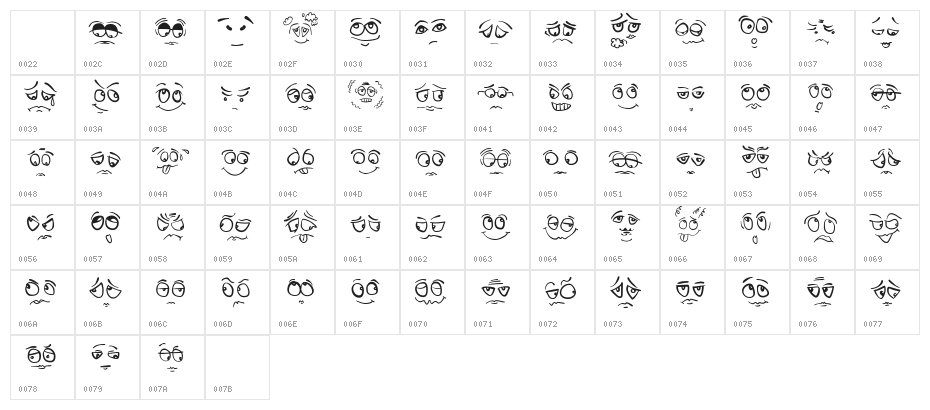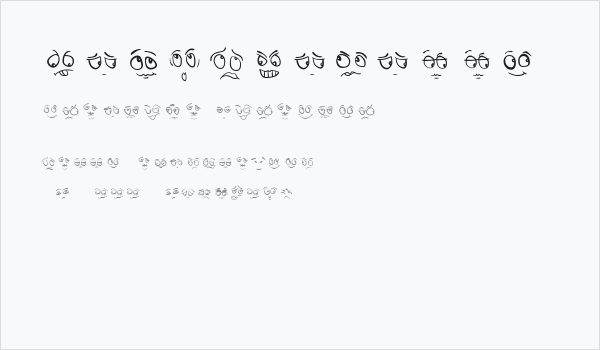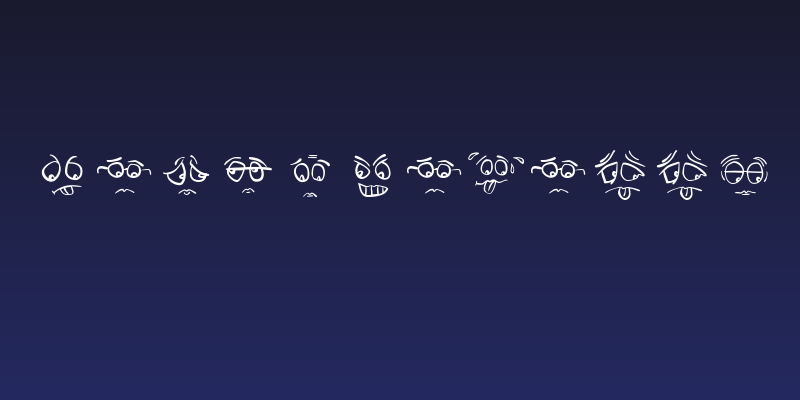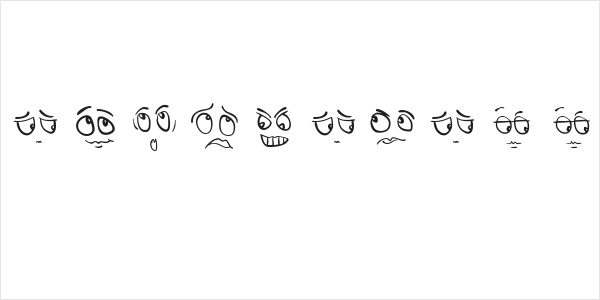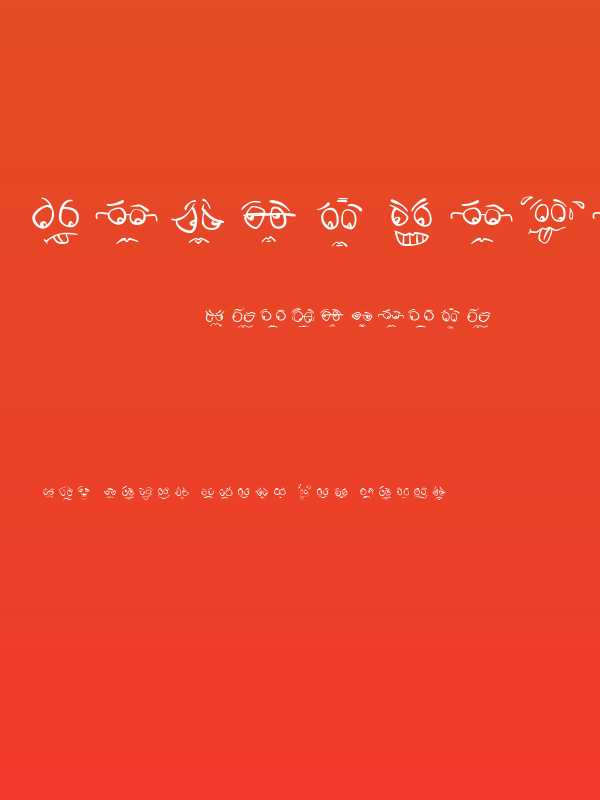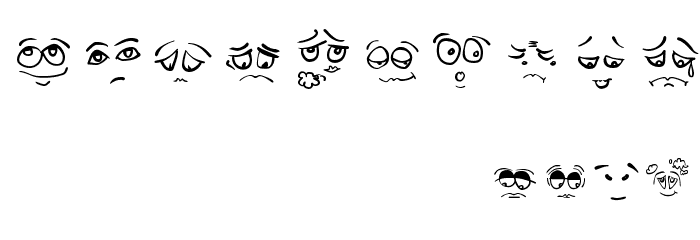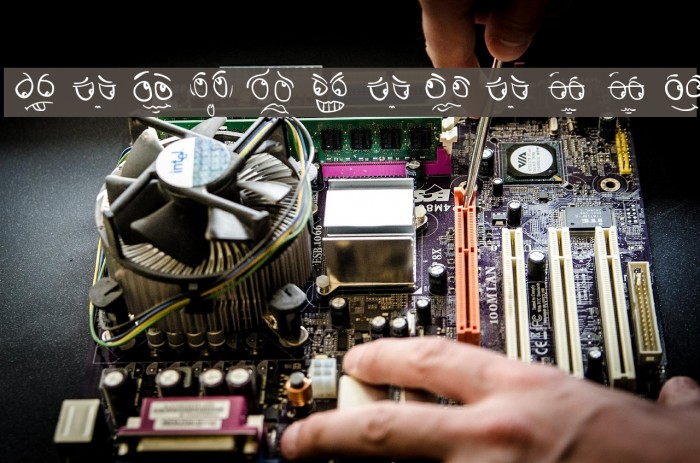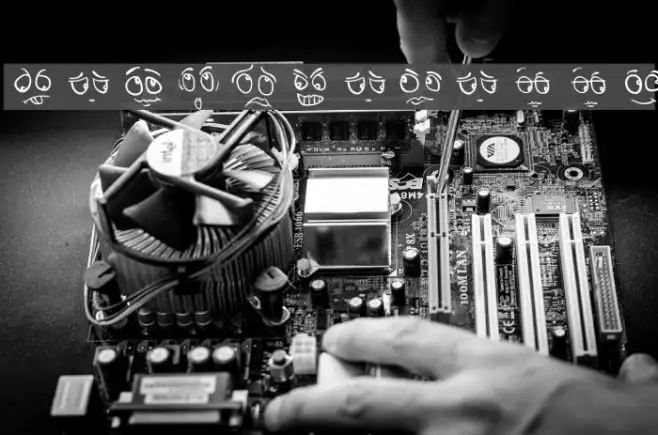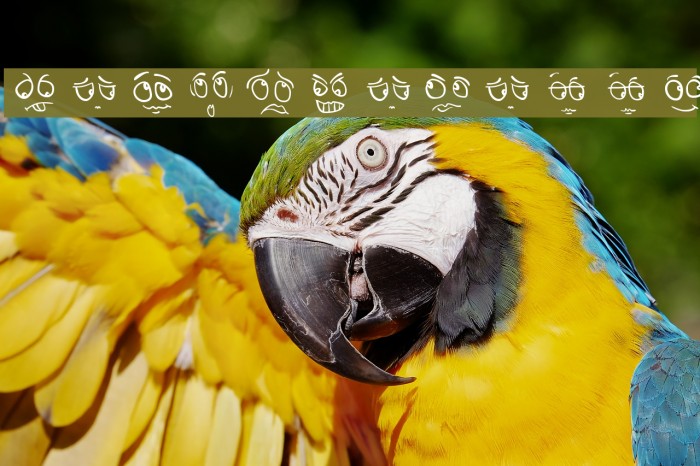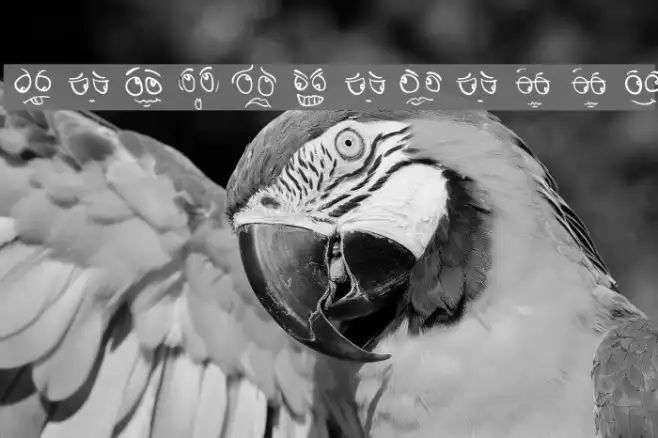
LaughBajazzo Font
LaughBajazzo Description
This is a playful and expressive collection of cartoonish eyes and facial expressions, each character conveying a distinct emotion or mood. The designs are whimsical and exaggerated, with bold lines and varying shapes that give each face a unique personality. The style is reminiscent of classic comic illustrations, making it ideal for projects that require a touch of humor and creativity. The characters are not uniform, offering a wide range of expressions from happy and surprised to confused and mischievous.
| Overall Style | Playful, Comic |
| Use Case | Illustrations, Comics, Branding |
| Proposed Projects | Ideal for comic strips, children's books, playful branding, and animation projects. |